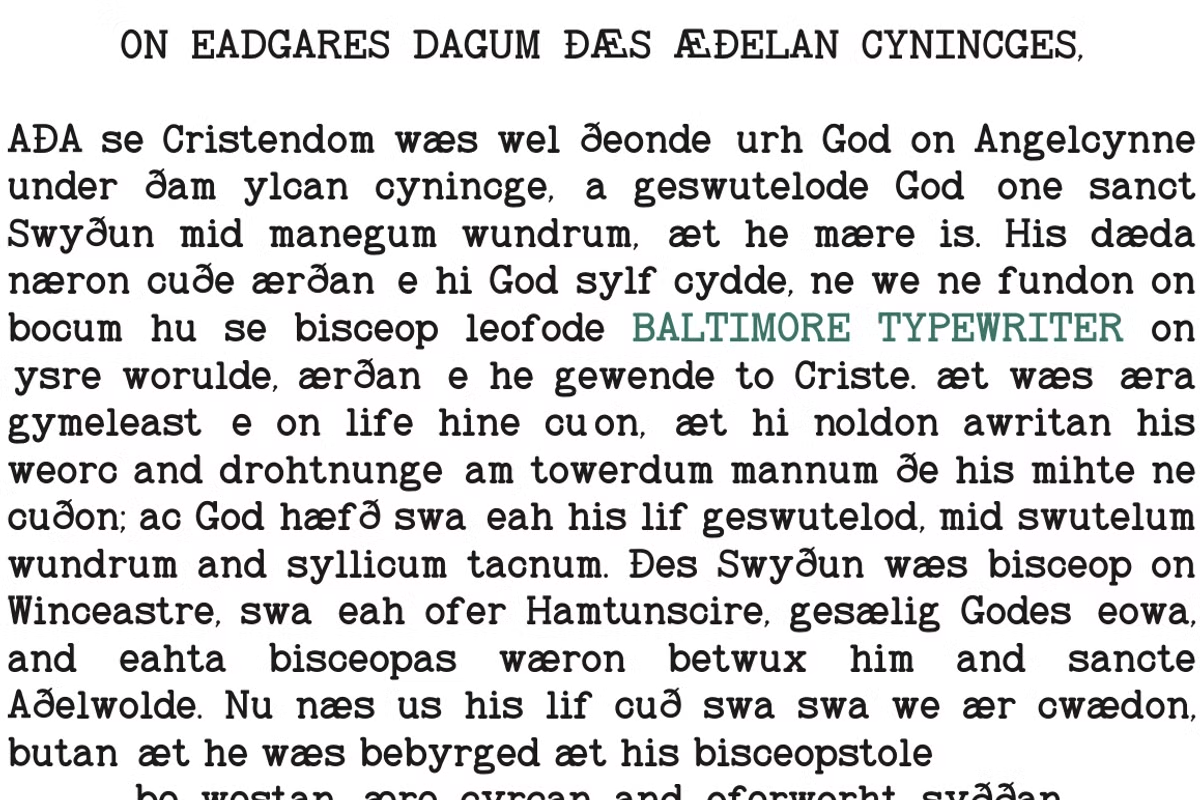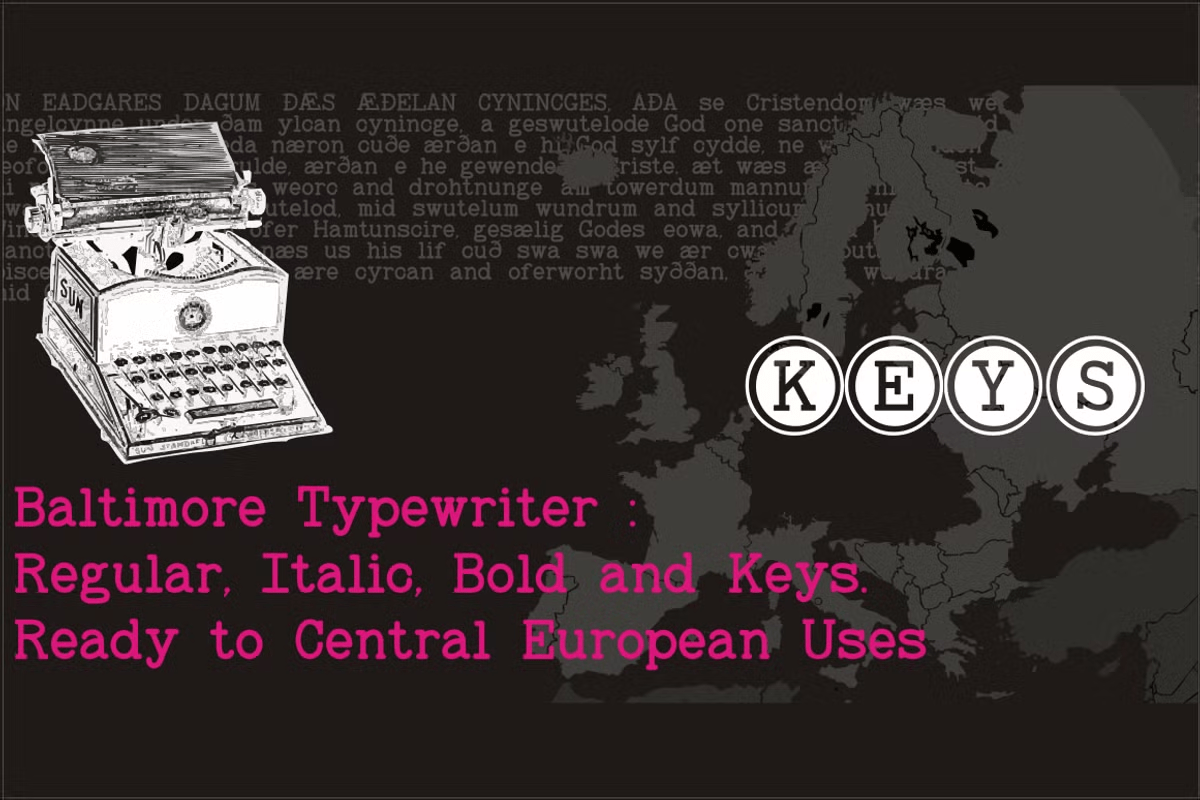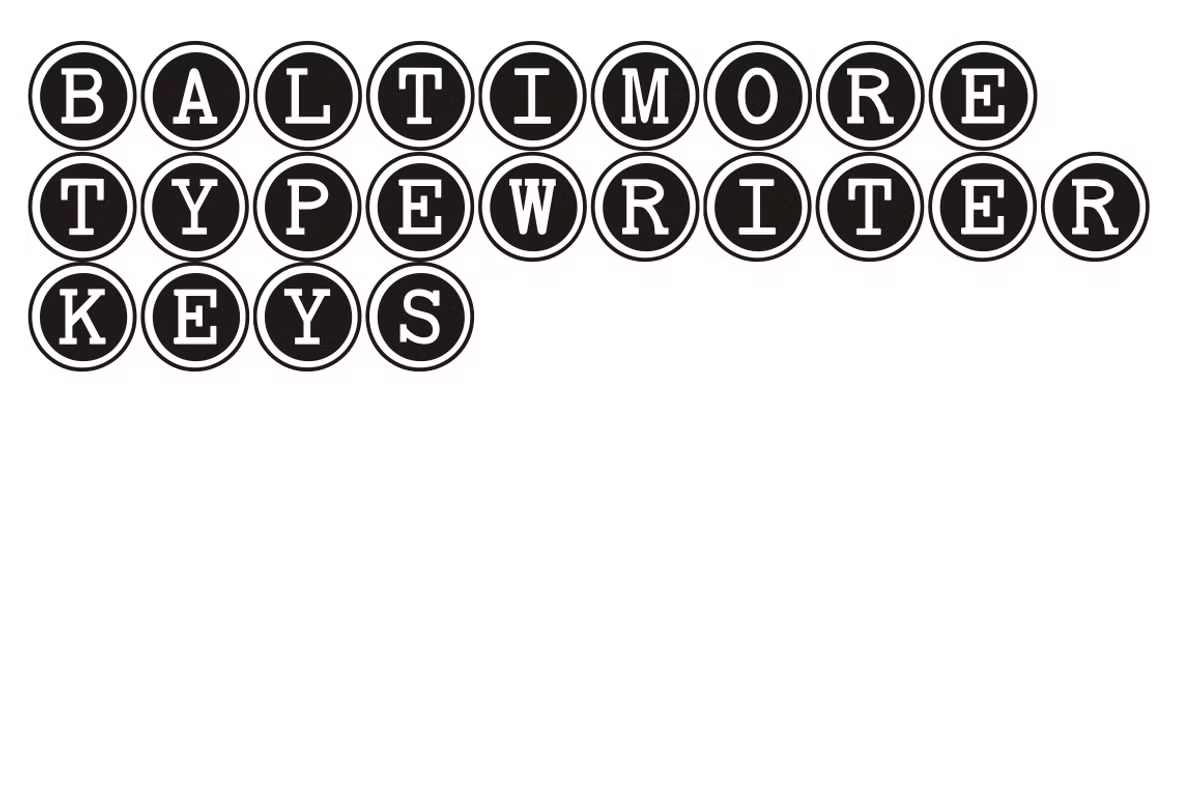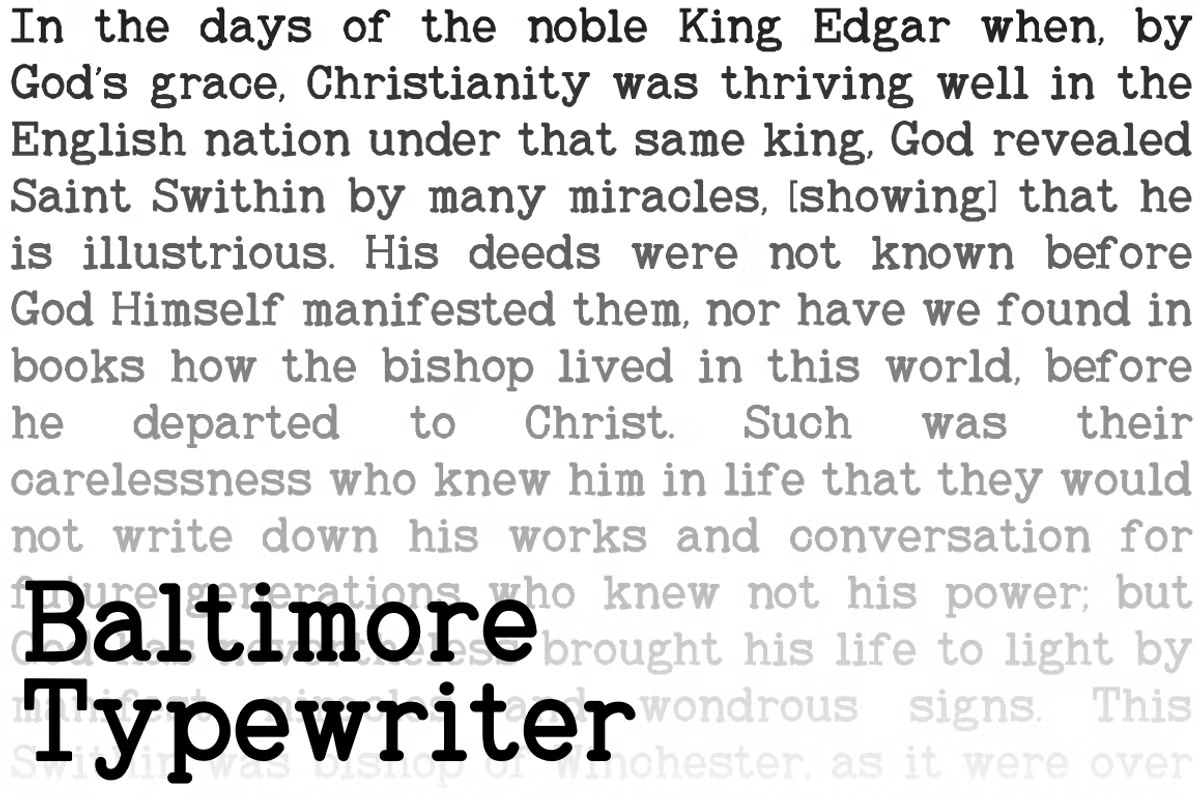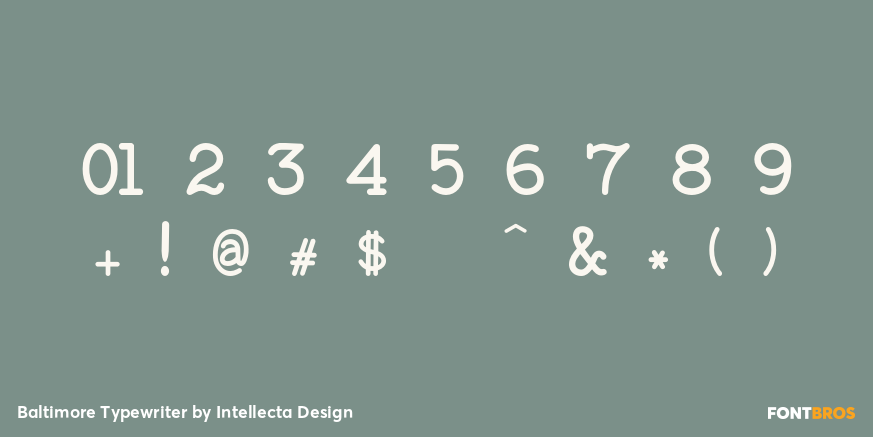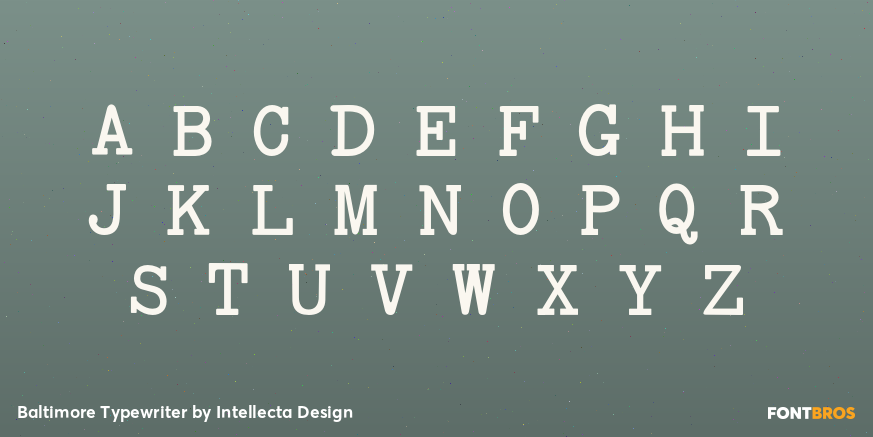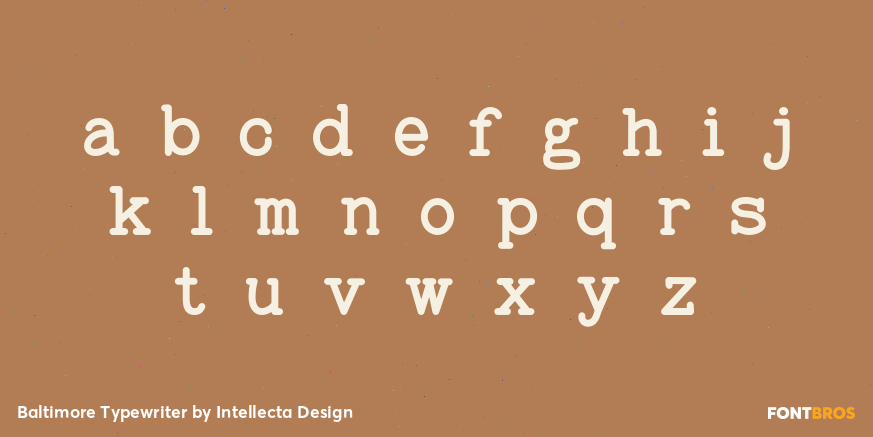
Baltimore Typewriter
Buy NowBaltimore Typewriter Basic Pack : 4 styles from this typewriter style font : regular, bold, italic and "keys" (letters in circle capsules). The pack has true type and open type formats available.
A complete set of characters with support to Albanian, Bosnian, Croatian, Czech, Danish, Dutch, Estonian, Faroese, French, German, Hungarian, Icelandic, Italian, Malagasy, Norwegian, Polish, Portuguese, Serbian, Slovak, Slovenian, Spanish, Swedish languages.